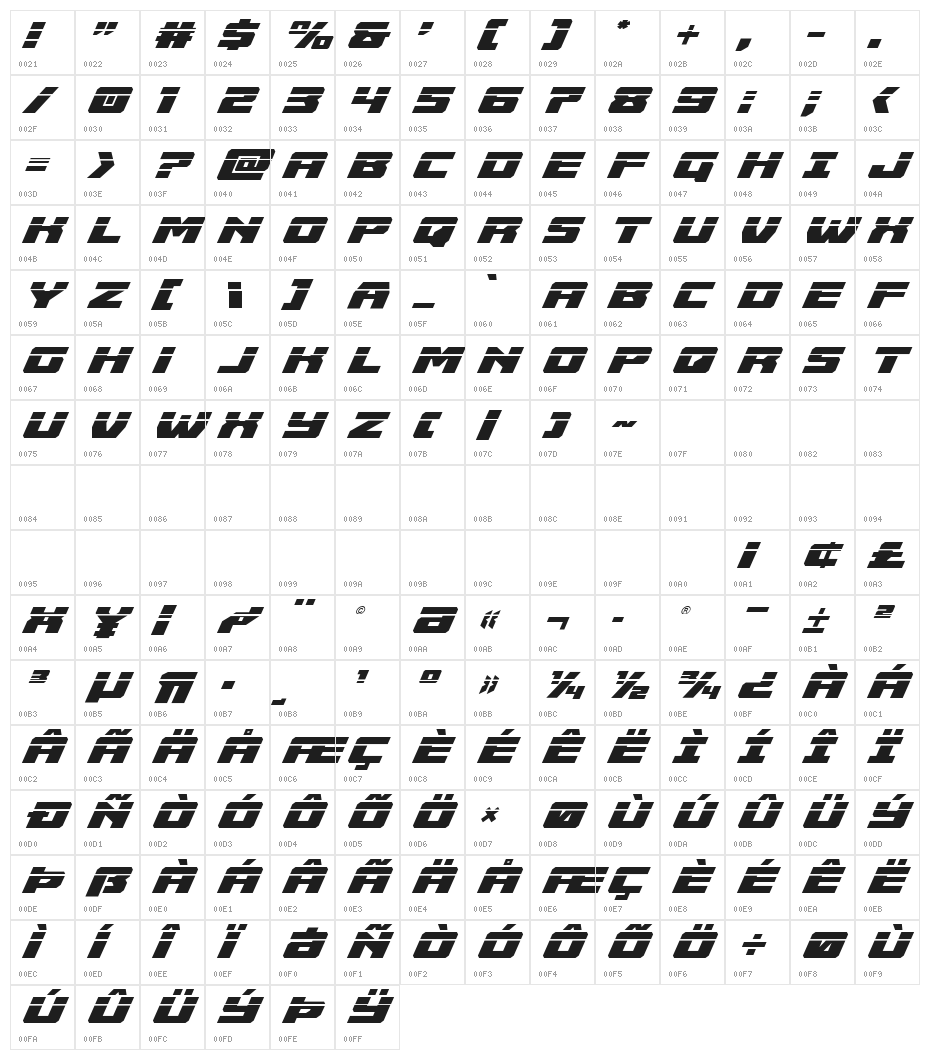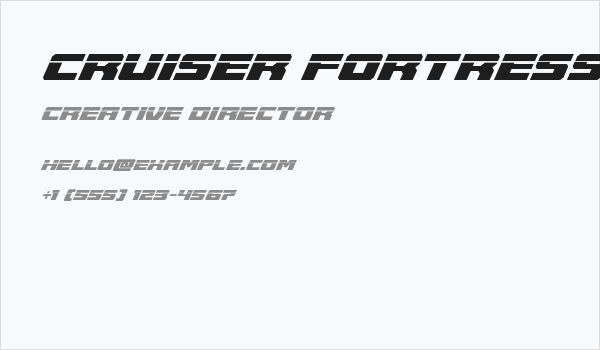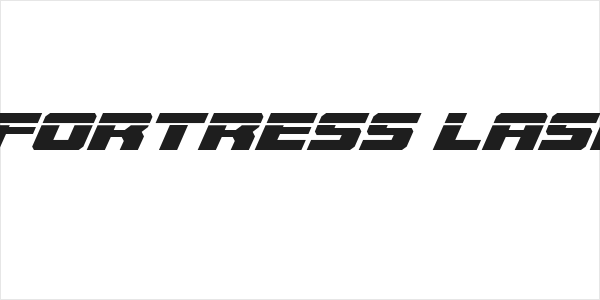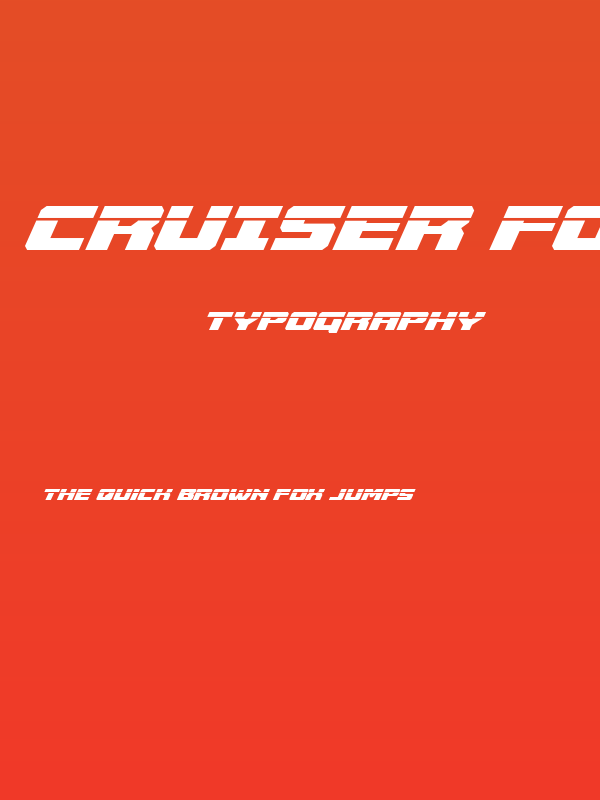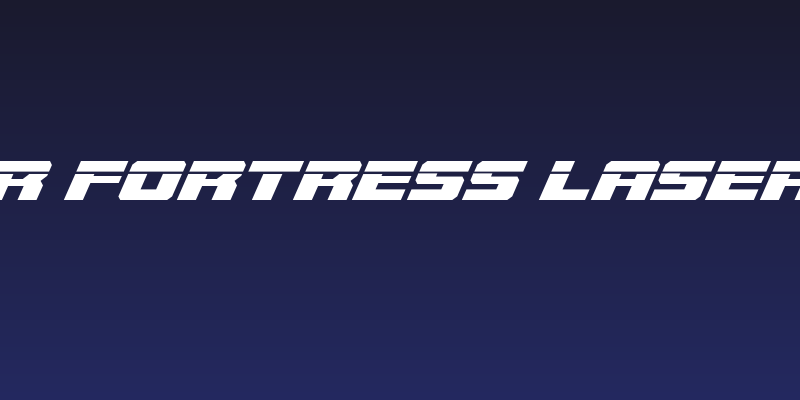
Cruiser Fortress Laser Italic Font
Cruiser Fortress Laser Italic Description
This font features a bold, futuristic design with a strong geometric structure. The characters are italicized, giving a sense of motion and speed. Each letter is crafted with sharp angles and a consistent slant, creating a dynamic and aggressive appearance. The font maintains a uniform stroke width, contributing to its bold and impactful presence. The numbers and special characters follow the same stylistic approach, ensuring cohesion across all elements. This font is ideal for projects that require a modern, tech-inspired aesthetic.
| Proposed Projects | Ideal for technology branding, video game titles, sci-fi movie posters, and sports team logos. |